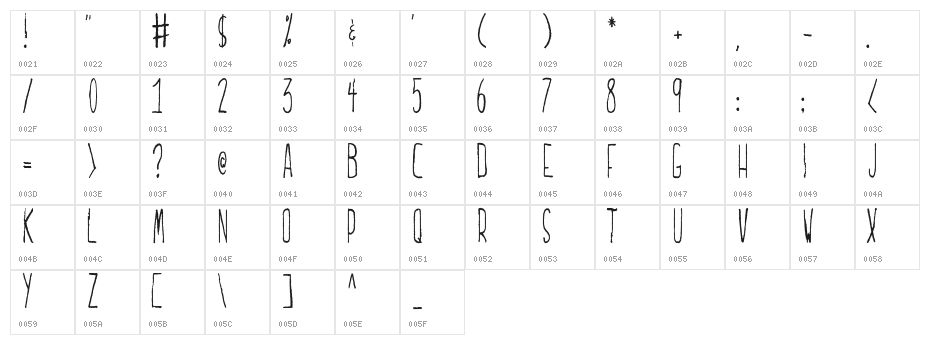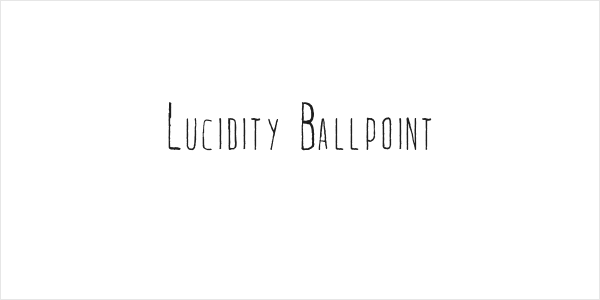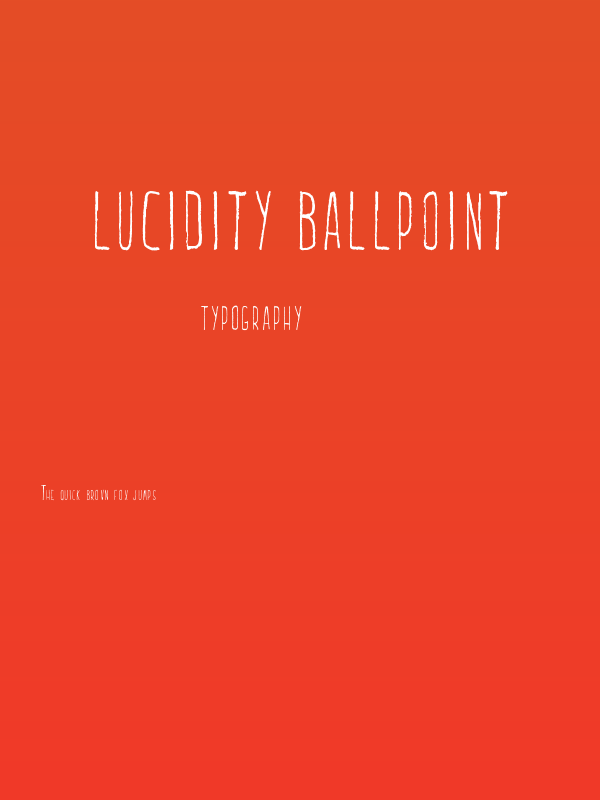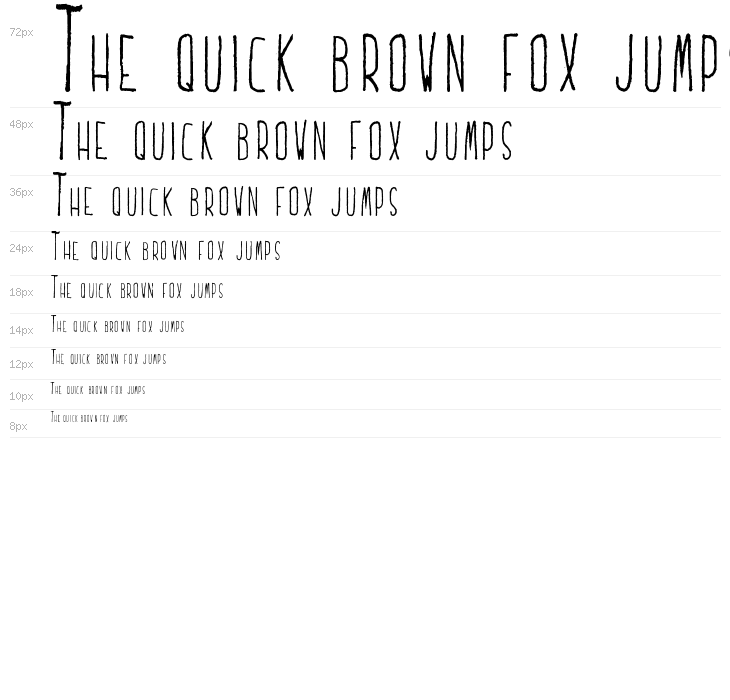
Lucidity Ballpoint Font
| Stile generale | Casual, Handcrafted |
| Caso d'uso | Logos, Invitations, Creative projects |
| Progetti proposti | Ideal for personal notes, informal invitations, creative projects, and branding that seeks a handmade aesthetic. |